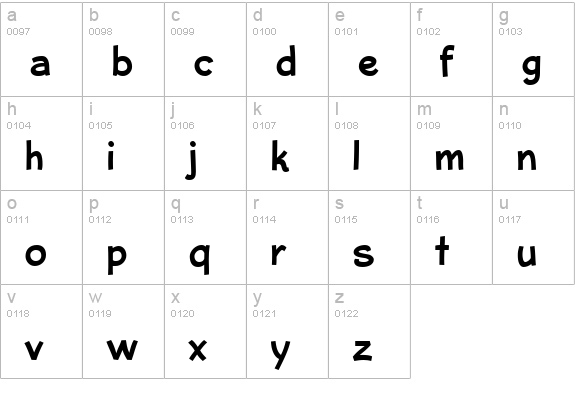
Bleeker font is a modern and stylish typeface that exudes sophistication and elegance. Its sleek lines and contemporary design make it perfect for a wide range of projects, from branding to advertising. The clean and clear letterforms of Bleeker font give it a timeless appeal that is sure to make your text stand out. The best part about Bleeker font is that it is completely free to download at FontsMarket.com. This means that you can easily access this beautiful typeface and use it in your designs without any cost. Whether you're creating a logo, poster, website, or any other project, Bleeker font is a versatile choice that will elevate your work to the next level. Don't miss out on the opportunity to enhance your designs with the premium quality of Bleeker font, available for free at FontsMarket.com. Download it today and see the difference it can make in your creative projects.